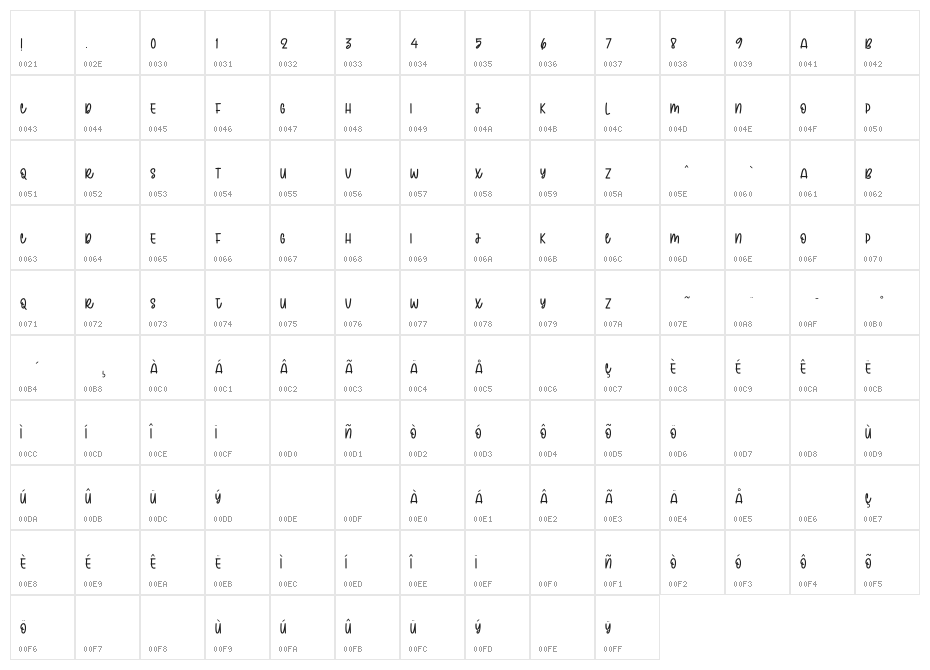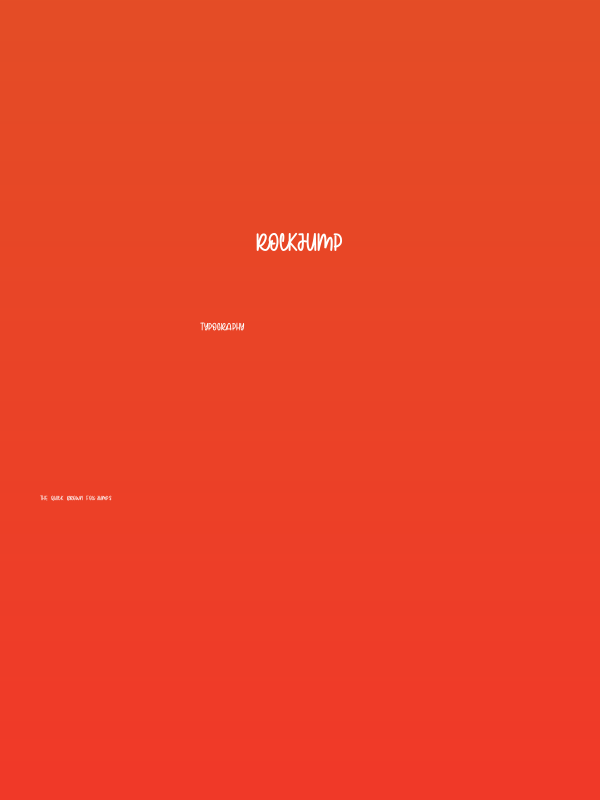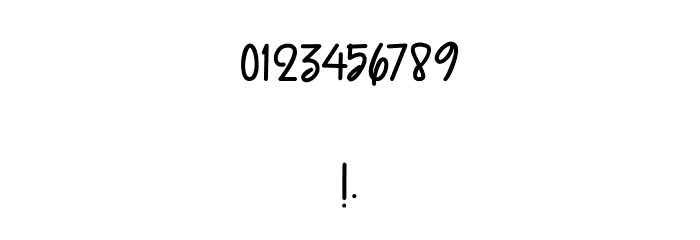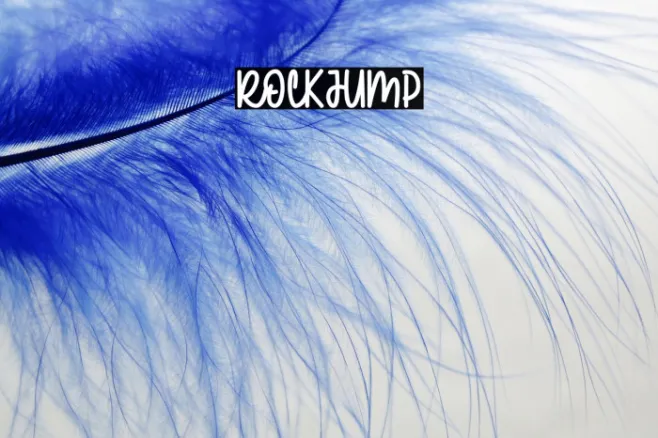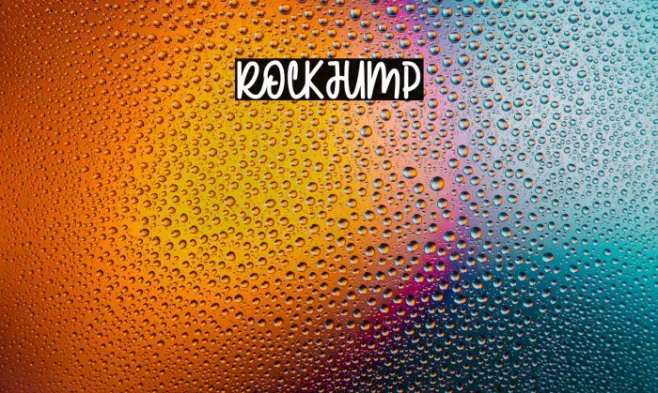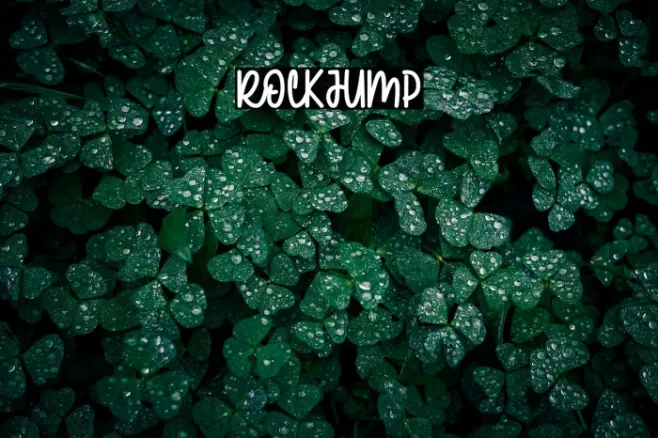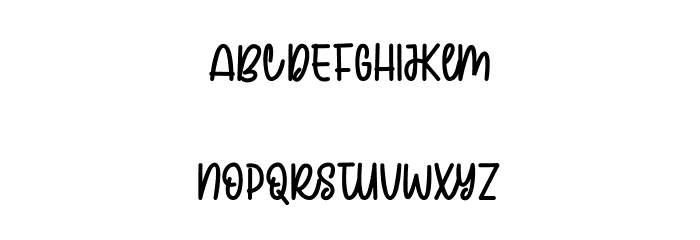
ROCKJUMP Font
ROCKJUMP Description
This font features a playful and energetic style, characterized by its bold, rounded letterforms and a slight slant that adds a sense of movement. The strokes are consistent in thickness, giving it a uniform appearance, while the rounded edges soften the overall look. This font exudes a casual and friendly vibe, making it suitable for projects that aim to convey warmth and approachability. The characters are well-spaced, ensuring readability even at smaller sizes. Its unique style makes it stand out, while maintaining a balance between creativity and legibility.
| Proposed Projects | Ideal for children's books, playful branding, event invitations, and social media graphics. |